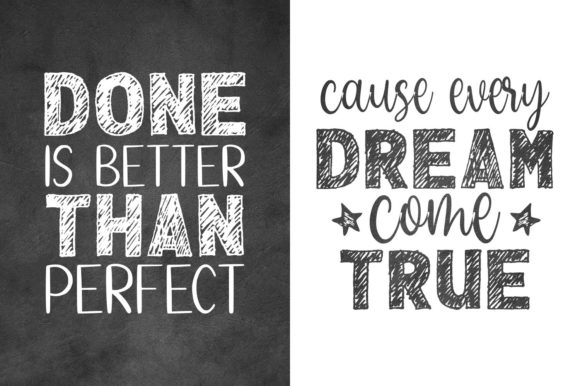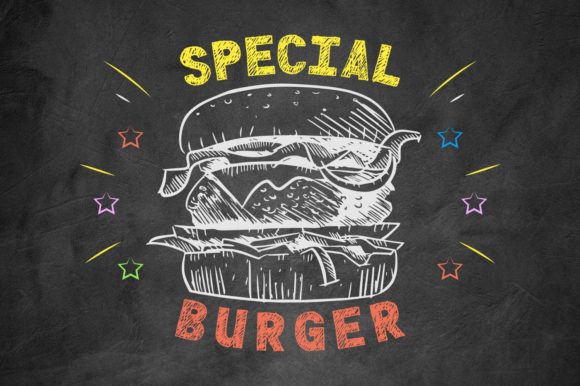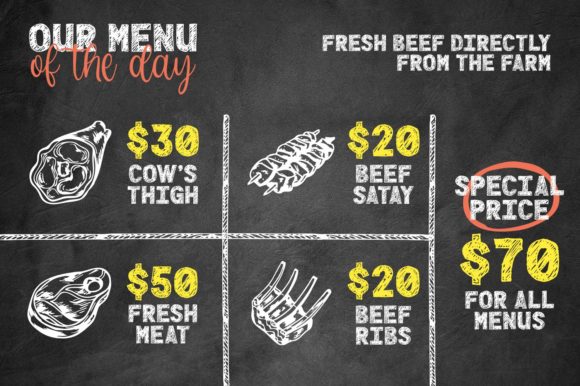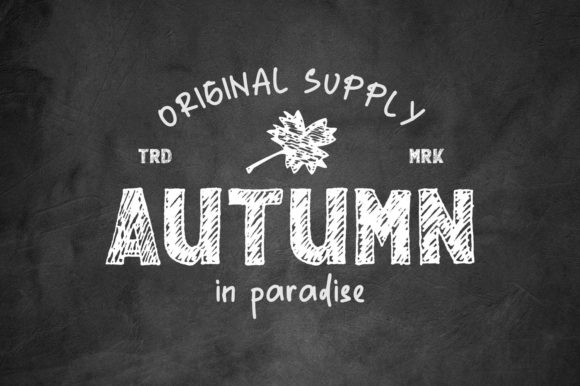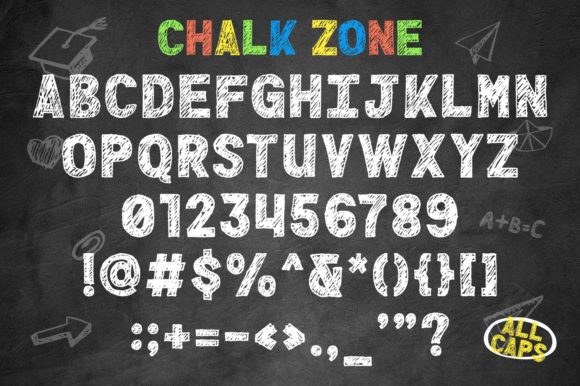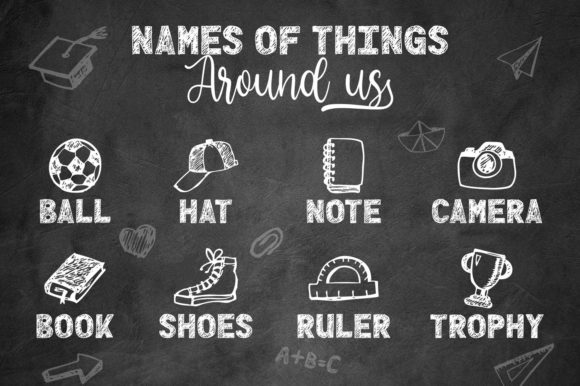
Introducing Chalk Zone Font: The Ultimate Display Font for Creative Projects
Are you tired of using the same old fonts for your creative projects? Look no further! Chalk Zone Font is here to revolutionize the way you approach design. This bold and colorful display font is perfect for adding a touch of personality to your work. With its friendly feel, Chalk Zone Font is incredibly versatile and can be used in a wide range of contexts.
What Makes Chalk Zone Font So Special?
Chalk Zone Font stands out from the crowd with its unique and eye-catching design. The font’s bold and colorful appearance makes it perfect for grabbing attention and adding a pop of color to your designs. Whether you’re working on a poster, flyer, or social media graphic, Chalk Zone Font is sure to make your project stand out.
One of the best things about Chalk Zone Font is its incredible versatility. The font’s friendly feel makes it suitable for a wide range of contexts, from fun and playful designs to more serious and professional projects. Whether you’re designing for a children’s party, a business event, or a social media campaign, Chalk Zone Font is the perfect choice.
Chalk Zone Font is a must-have for designers and crafters looking to add a touch of personality to their work. The font’s bold and colorful design makes it perfect for a variety of projects, including:
- Crafting projects, such as handmade cards and gift tags
- Digital art and illustrations
How to Use Chalk Zone Font in Your Projects
Using Chalk Zone Font in your projects is easy! Here are a few tips to get you started:
- Use it as a headline font to grab attention and add a pop of color to your design
- Pair it with a simple font for body text to create a striking contrast
- Use it to create eye-catching social media graphics and posts
Why Choose Chalk Zone Font?
With so many fonts to choose from, why should you choose Chalk Zone Font? Here are just a few reasons:
- Unique and eye-catching design
- Incredibly versatile and suitable for a wide range of contexts
- Perfect for designers and crafters looking to add a touch of personality to their work
- Easy to use and pair with other fonts
In conclusion, Chalk Zone Font is a bold and colorful display font that is perfect for adding a touch of personality to your creative projects. With its friendly feel and incredible versatility, it’s a must-have for designers and crafters looking to make their work stand out. So why wait? Add Chalk Zone Font to your creative toolkit today and notice the difference it makes!